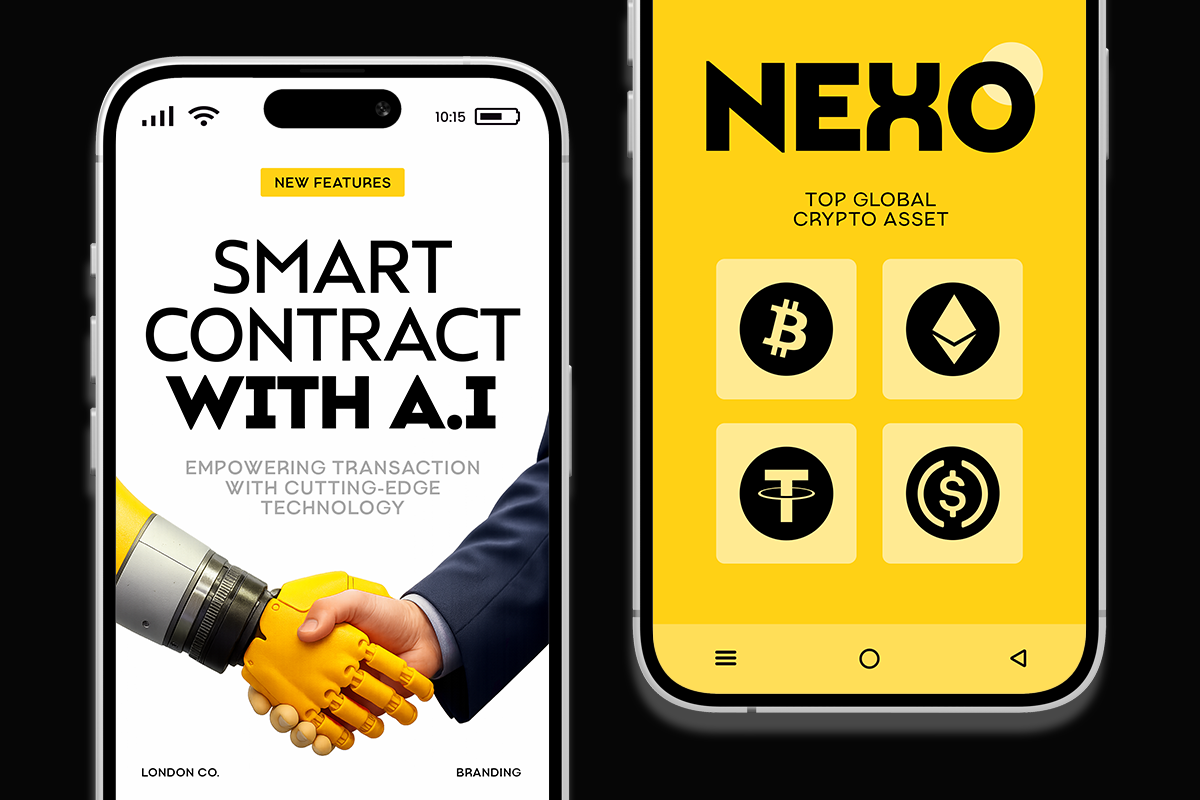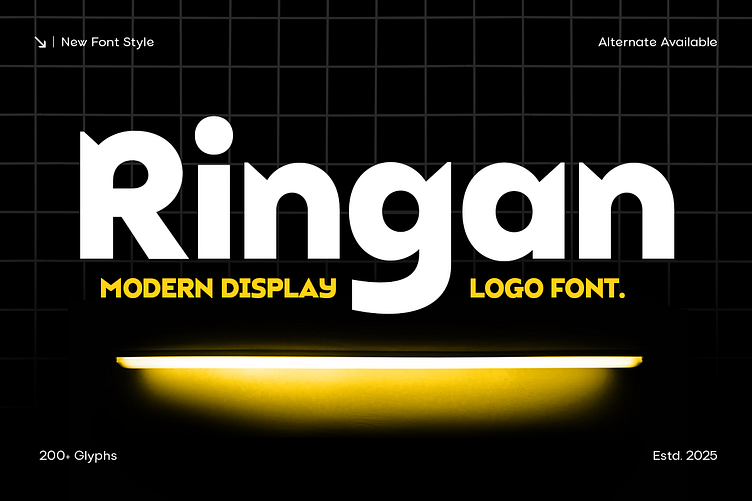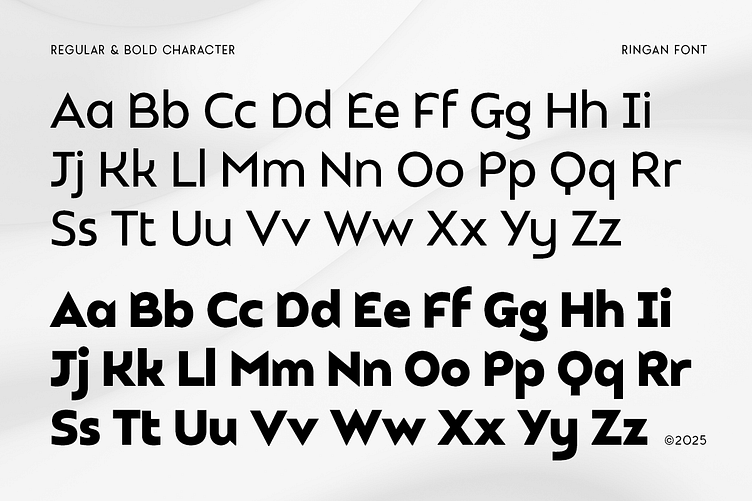
Ringan Font - Sleek Display Typeface for Modern Logos π
Ringan - Modern Display Logo Font β¨
Bold, Light, Precise β Made to Stand Out
Meet Ringan, a modern display typeface crafted for clarity and impact. With sharp rhythm, generous spacing, and clean geometry, Ringan balances bold character with a lightweight feel β perfect for logos, big headlines, and visual identities that demand presence without heaviness.
In this branding case study, I explored how Ringan performs across editorial design, packaging, and digital branding systems.
From oversized logos to sleek media layouts, Ringan keeps every design fresh, modern, and effortlessly stylish.
π§ Ideal for:
β Logo designers & brand studios
β Fashion & editorial headers
β Digital packaging & media
β Minimalist & creative branding
Ringan is light in weight but bold in expression. Stylish. Modern. Built for clarity.
Let your brand speak with bold elegance β even in wide-open spaces.